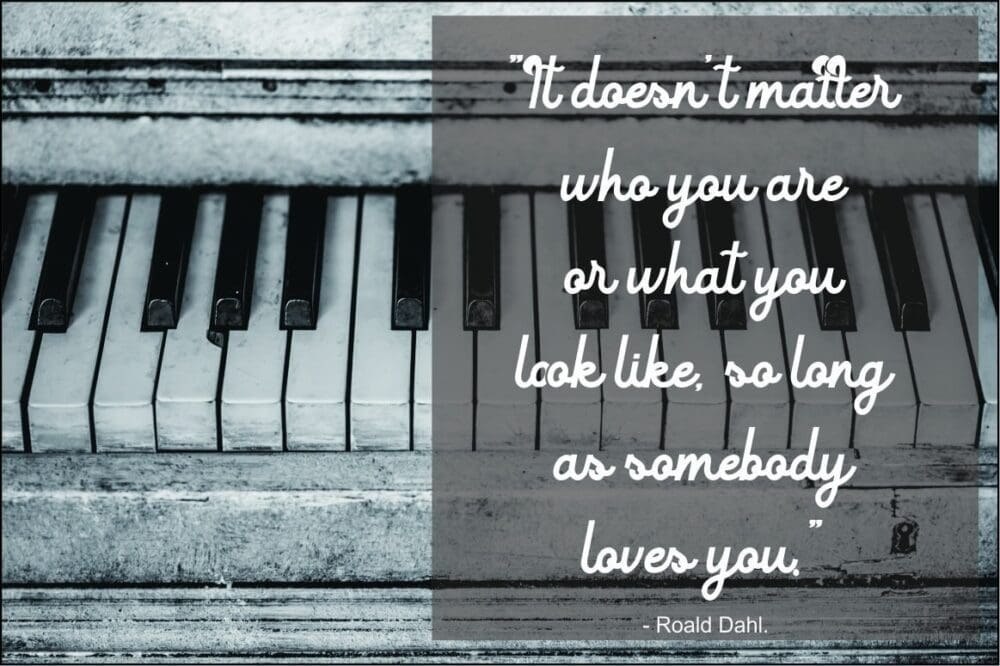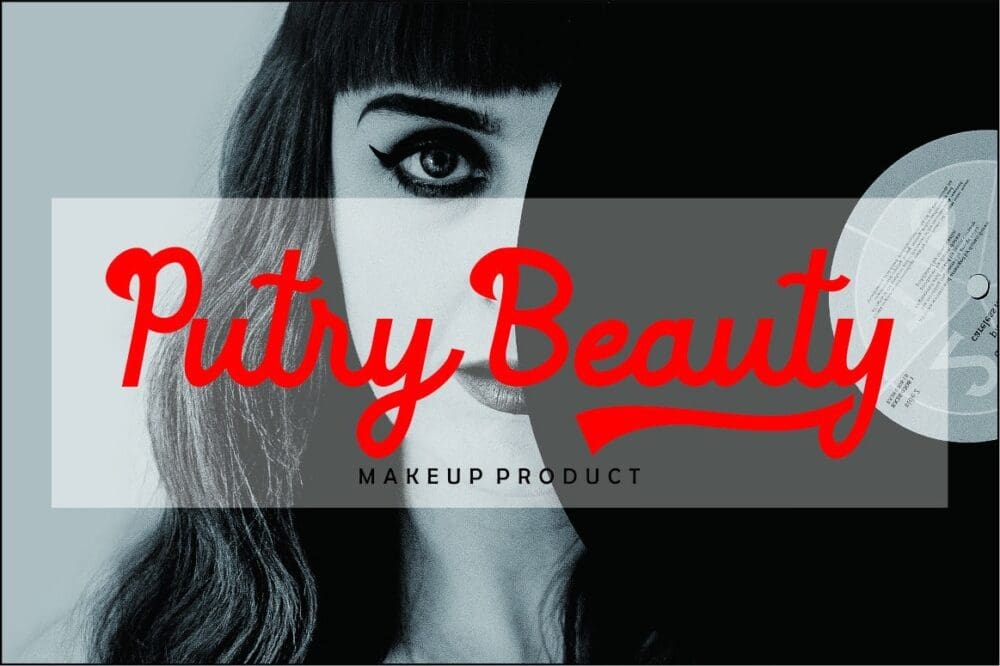
Valldoom Font
Valldoom is a classical Script font that can make your design look simple, elegant, and bold. This font is perfect for logo, branding, title, social media posts, advertisements, product packaging, product designs, label, photography, watermark, special event, magazine, web design, vintage design, etc.